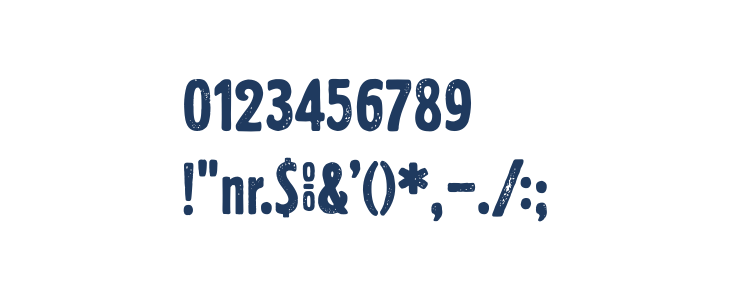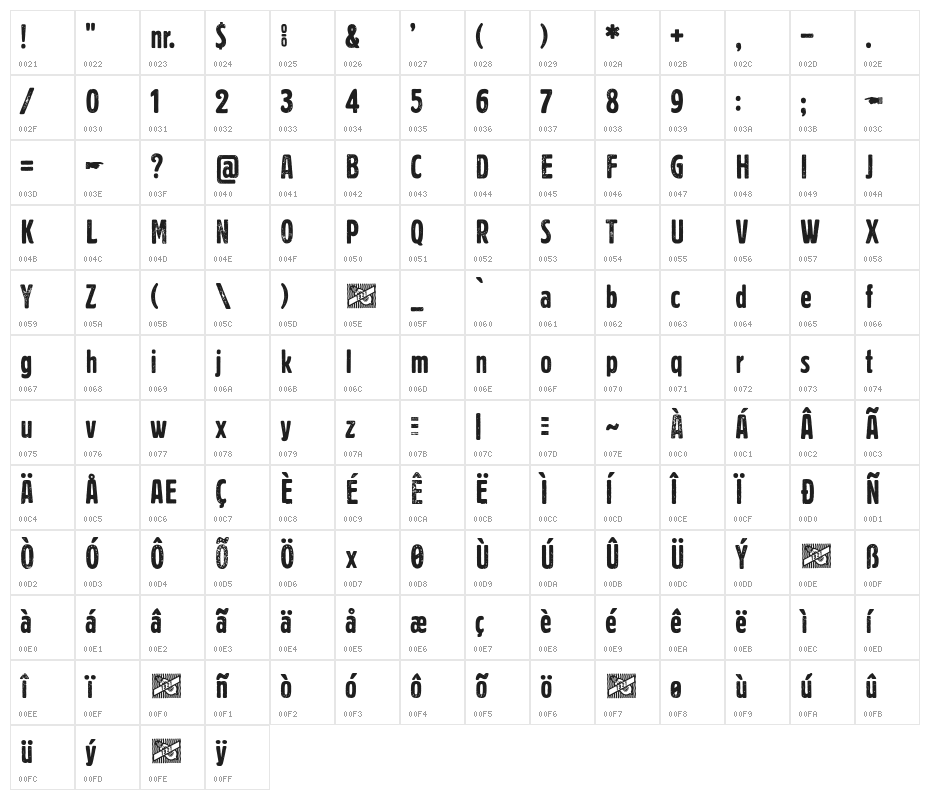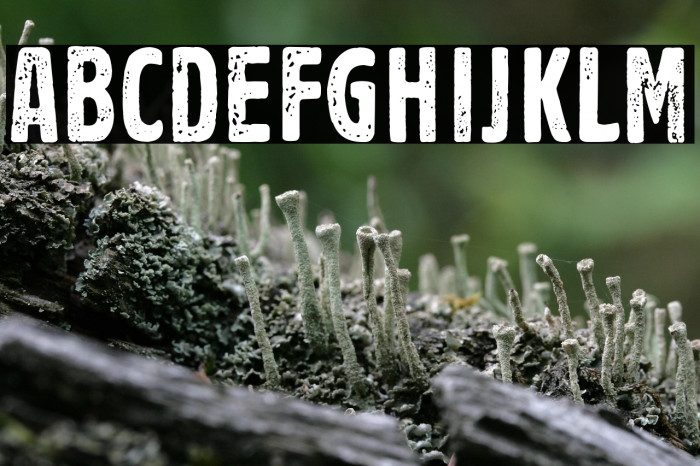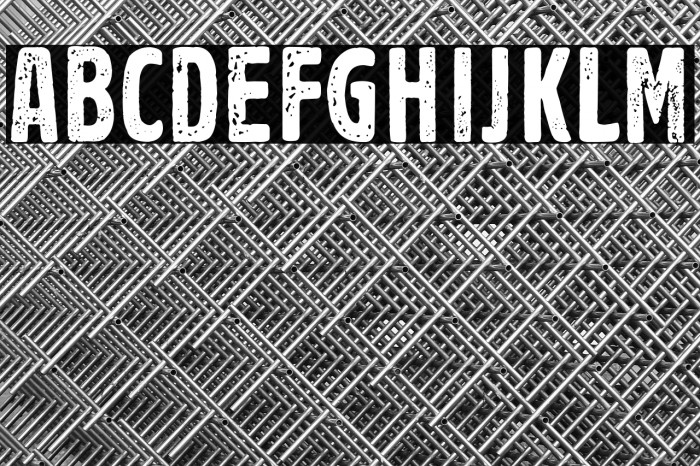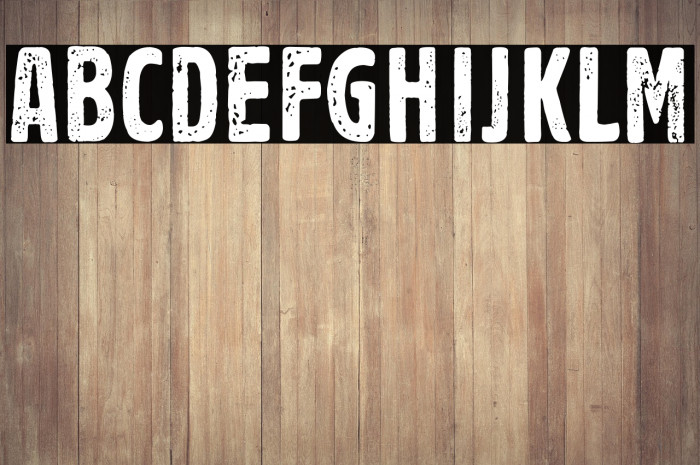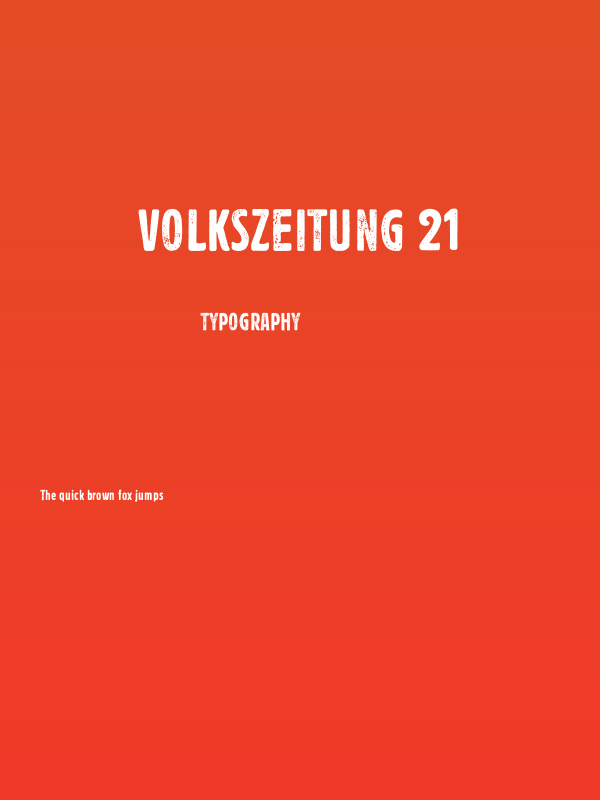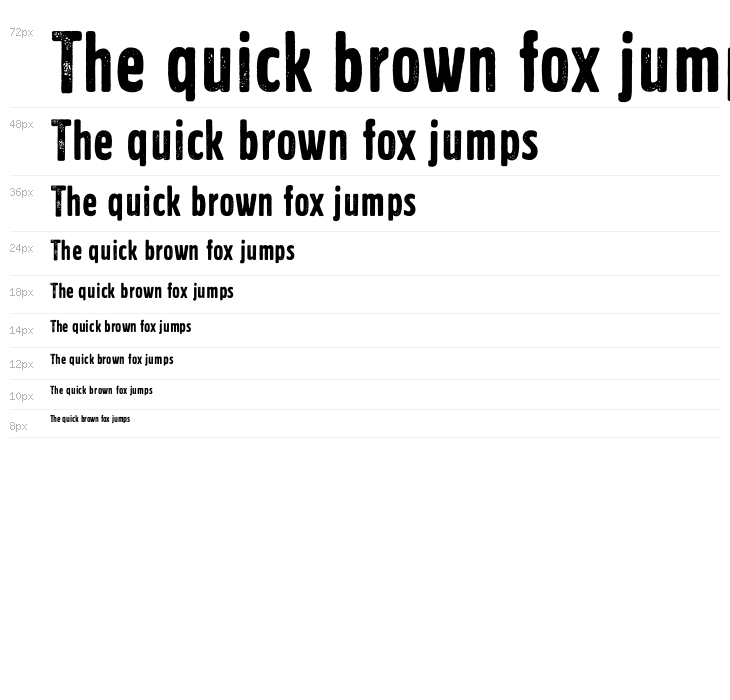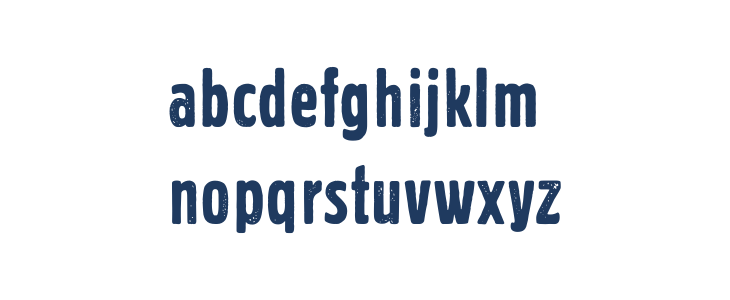
Volkszeitung 21 Font
Volkszeitung 21 Description
This font features a bold and rugged appearance, characterized by its distressed texture that gives it a vintage, worn-out look. The uppercase and lowercase letters are well-proportioned, with rounded edges that soften the overall aesthetic. The numerals and special characters maintain the same textured style, ensuring consistency across all glyphs. The font's boldness and unique texture make it stand out, while its legibility remains intact, making it suitable for various design applications.
| Proposed Projects | Ideal for vintage-themed posters, branding for rustic or artisanal products, and eye-catching headlines. |